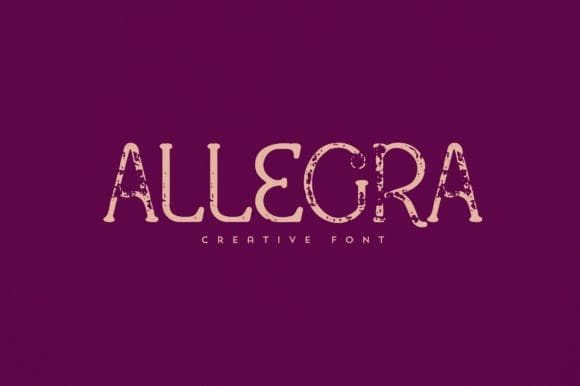
Allegra Display Typeface
Allegra Display Typeface is an elegant and versatile font that will make your typography truly unique! It will enchant every logo, branding, headline, or plain text!